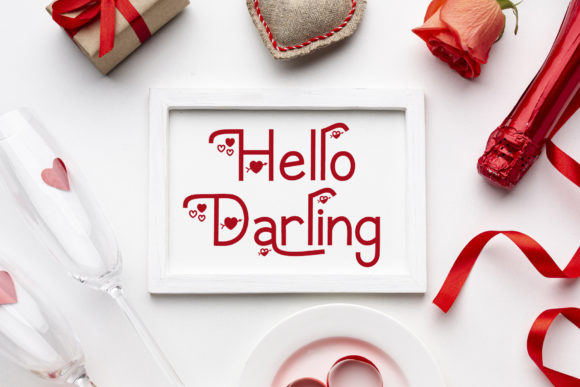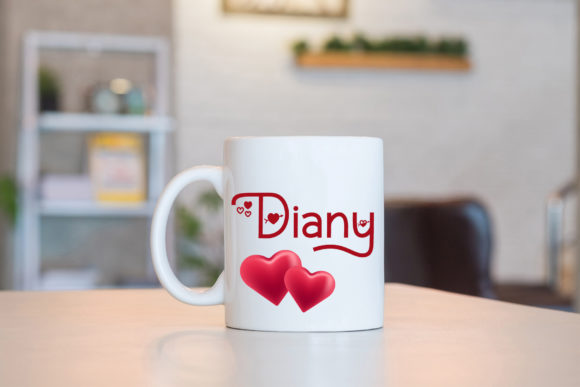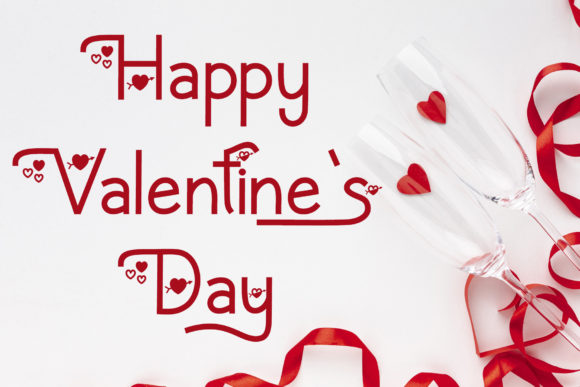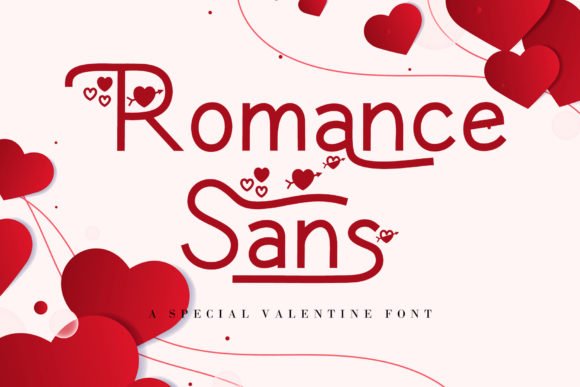
Introduction to Romance Sans Font
Romance Sans is a modern display font featuring lovely ornaments.
This font is perfect for romantic themed designs, especially when combined with red or bright colors It is PUA encoded which means you can access all of the glyphs and swashes with ease.